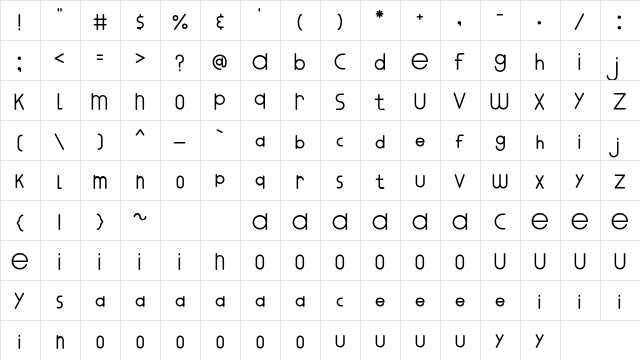
MOON KNIGHT Regular
| Foundry | Attypestudio |
| Designer | Attypestudio |
MOON KNIGHT offers clean, dependable letterforms without strong stylistic allegiance, making it a practical choice for designers who need flexibility.